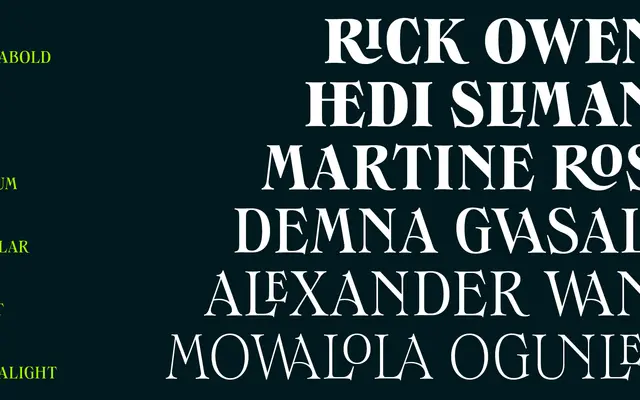
Swanstone
Zetafonts · Mario De Libero · 2021
A high-contrast display serif rooted in early 20th-century Italian typography, particularly the Nebiolo foundry's Raffaello, with an edgy tension between classical elegance and contemporary sharpness.
Designed by Mario De Libero and released in 2021, Swanstone draws on historic Italian type, especially the Nebiolo foundry's Raffaello, and channels the dramatic weight contrast of ITC Benguiat into a more personal, experimental form. The family spans six weights from Extralight to Extrabold, each with a matching italic, plus variable Roman and italic axes, and covers Latin and Cyrillic across 216 languages. Signature details in the lowercase 'a' and 's' give it a recognisable character suited to fashion editorial, poster work and high-end branding.
Described explicitly as a display typeface, Swanstone draws on early 20th-century Italian serif traditions, particularly Nebiolo's Raffaello and ITC Benguiat, blending high contrast classical proportions with an edgy, experimental character suited to display use.